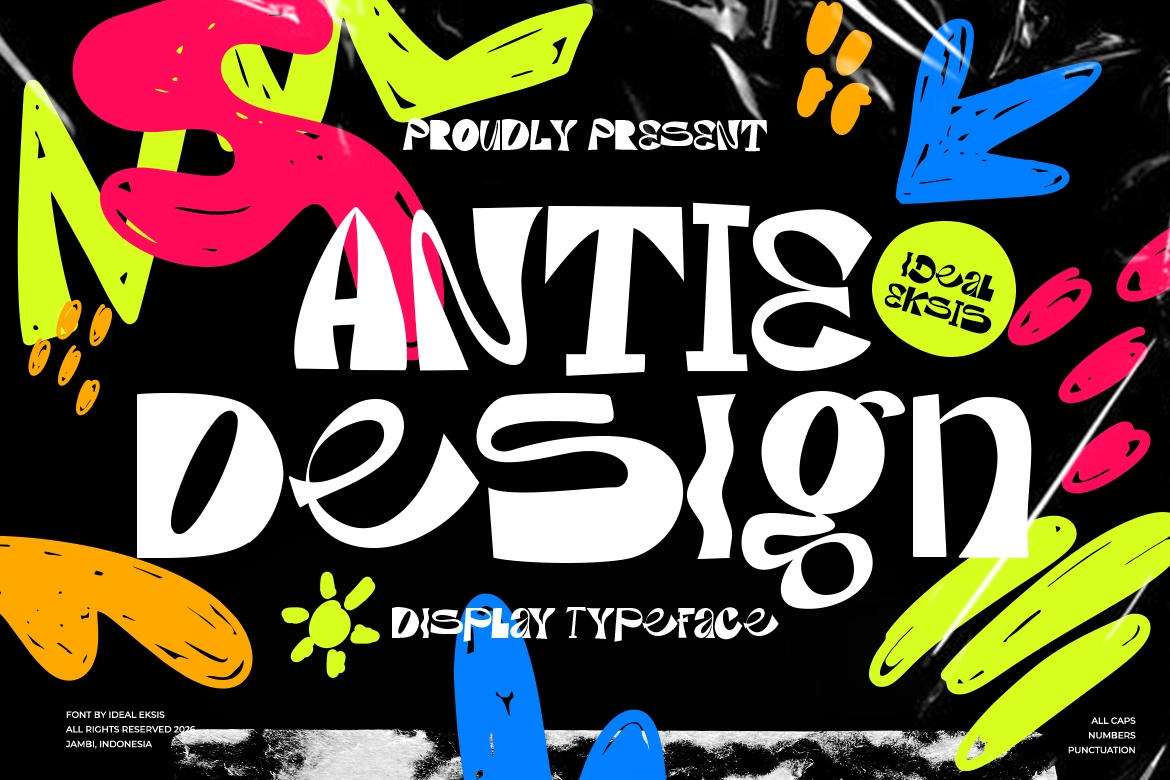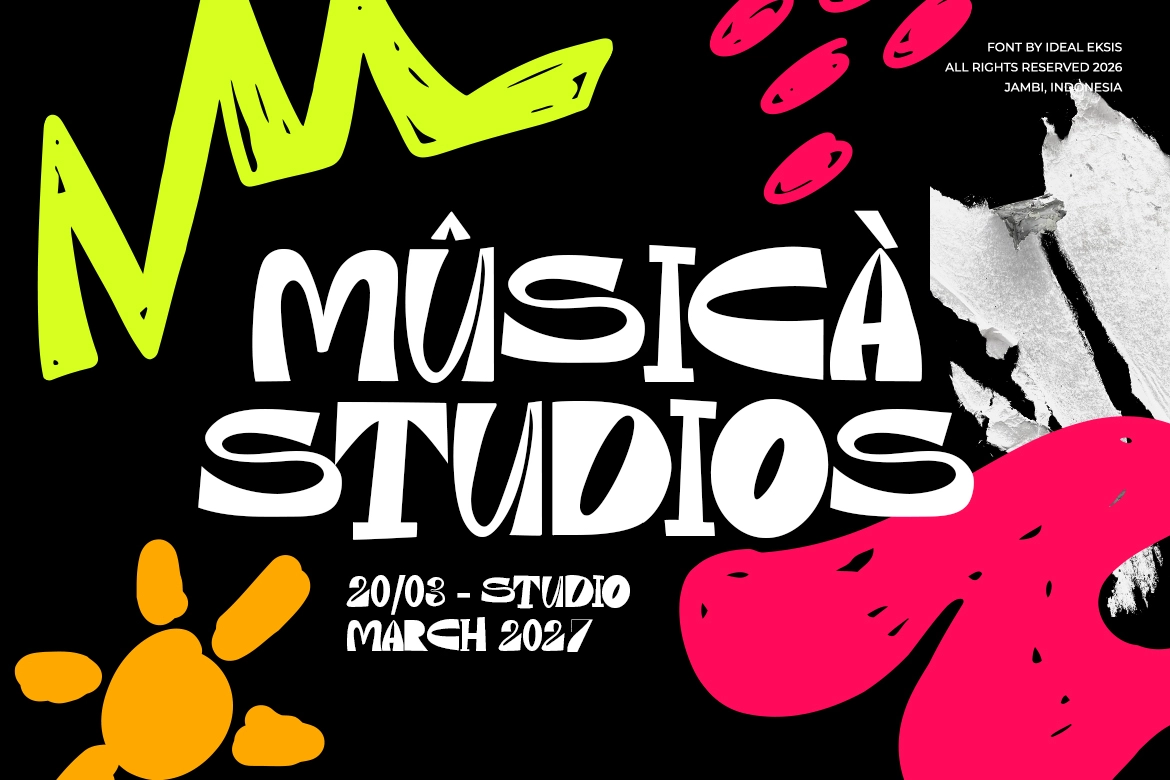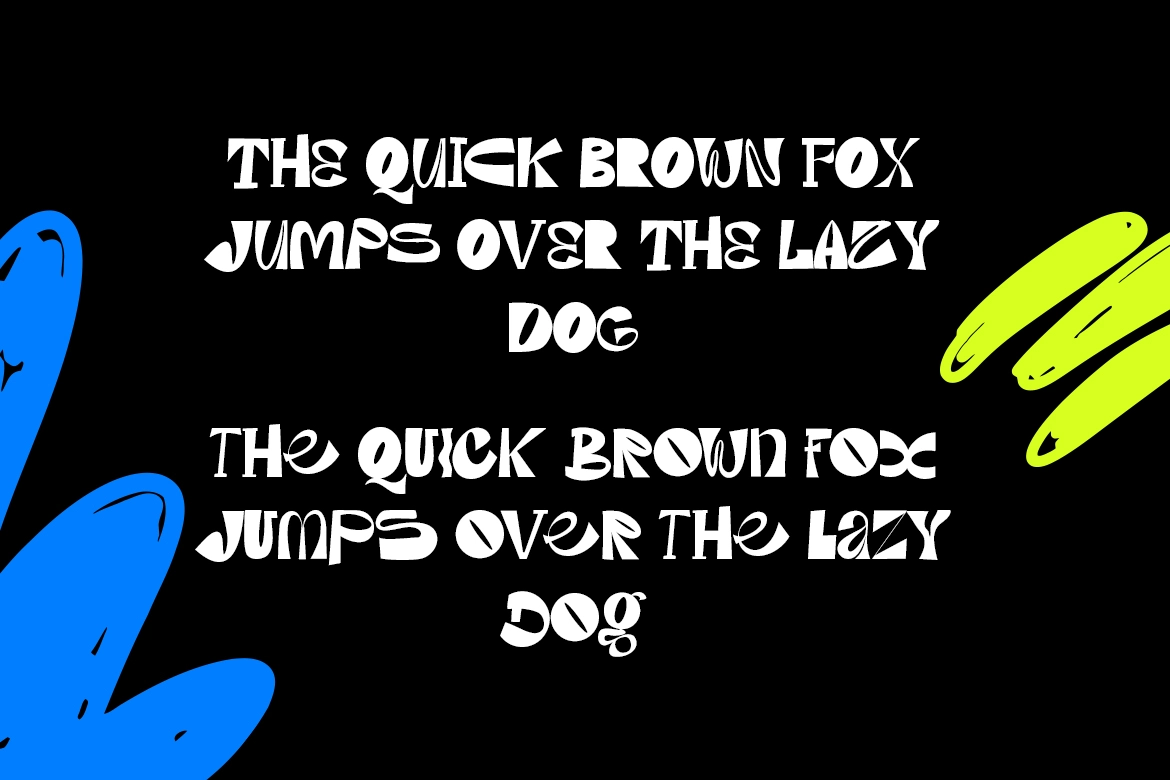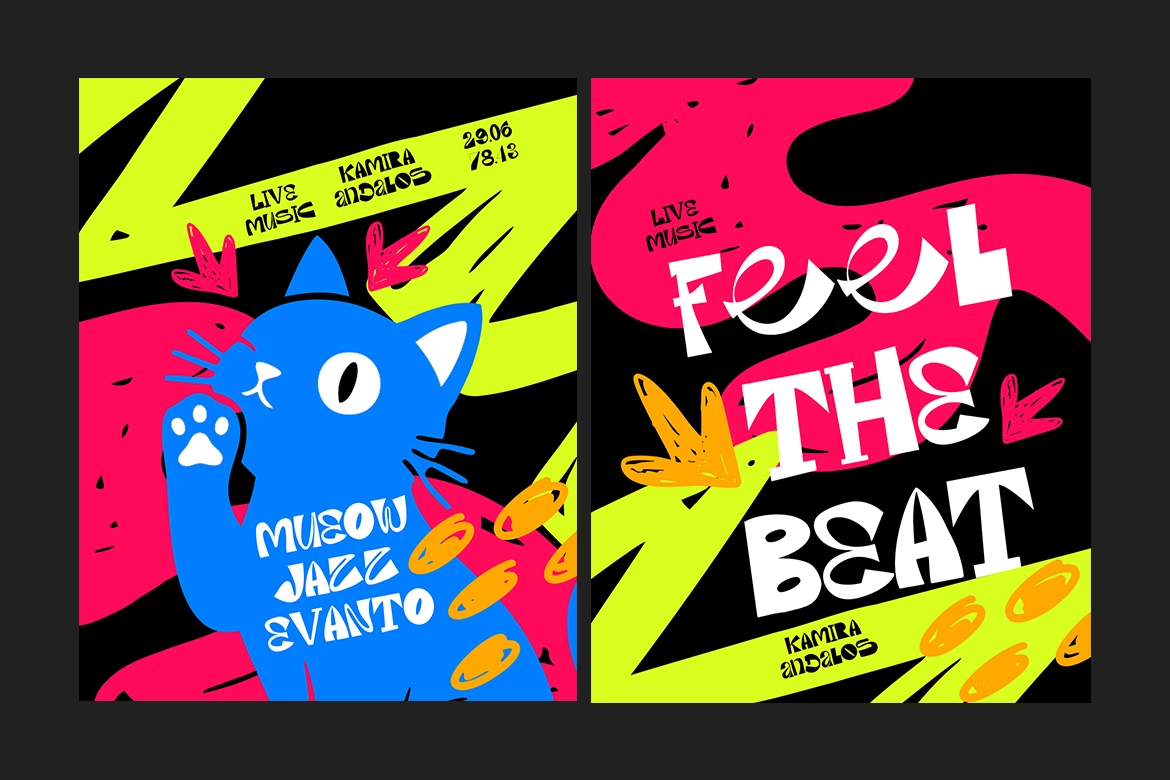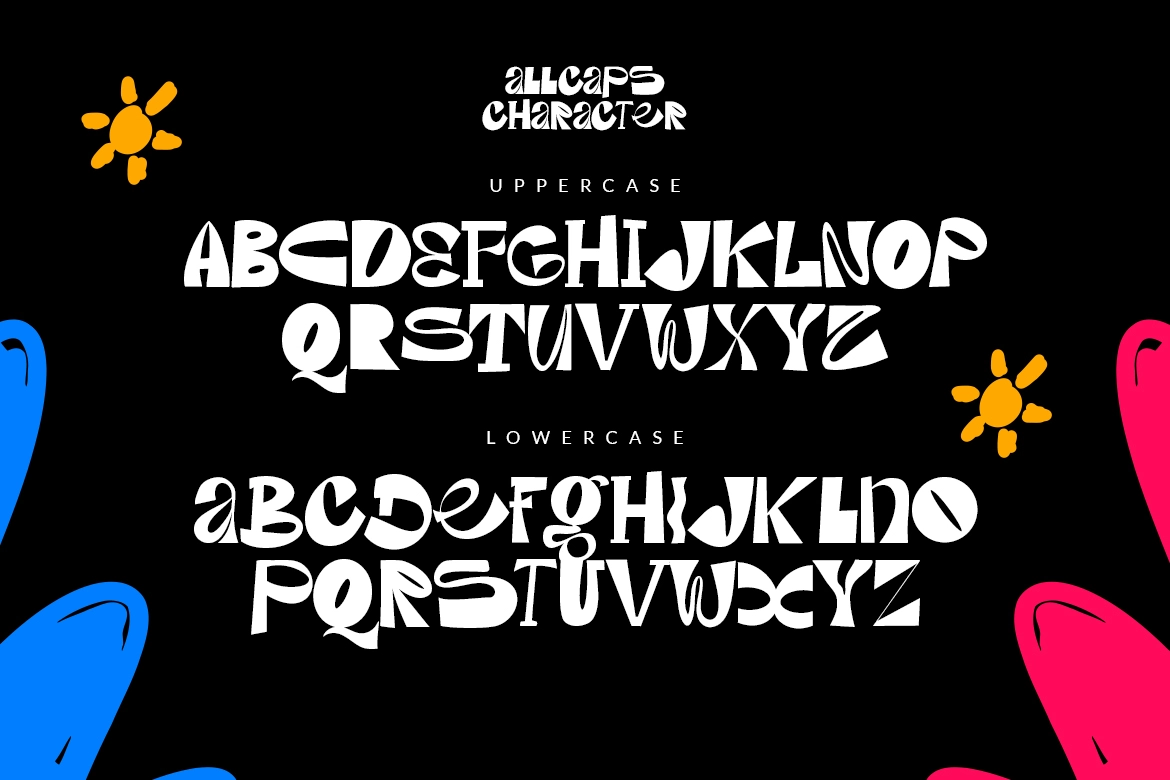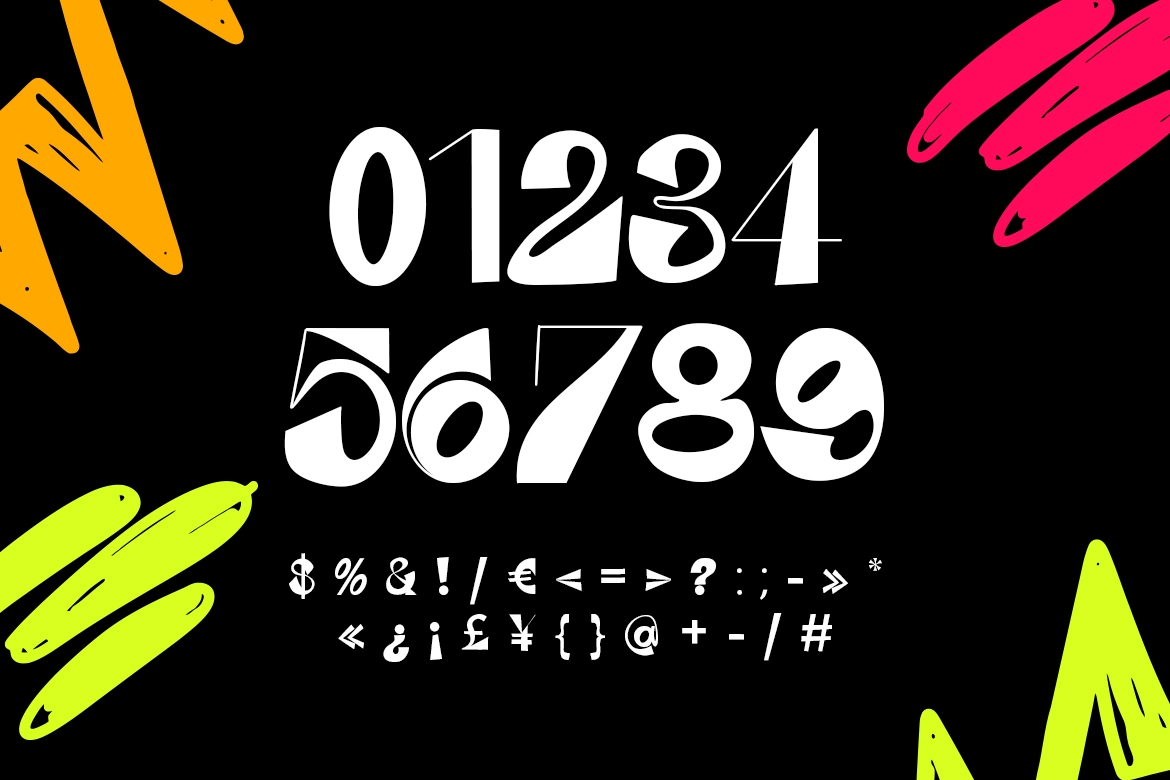
Anti Design Font
Antie Design
Anti Design Font is a bold and unconventional display typeface defined by its irregular shapes, high-contrast strokes, and organic, free-flowing structure. Designed to break traditional design rules, it brings a raw, expressive energy perfect for modern, rebellious, and creative projects.
This artistic font captures an experimental spirit, making it ideal for posters, music covers, editorial layouts, branding, and digital artwork that demand visual impact and personality. Every letterform feels handcrafted, adding a unique rhythm and attitude to your compositions.
Perfect for designers who want to push boundaries and create standout visuals, Anti Design Font celebrates imperfection, individuality, and bold creative expression.